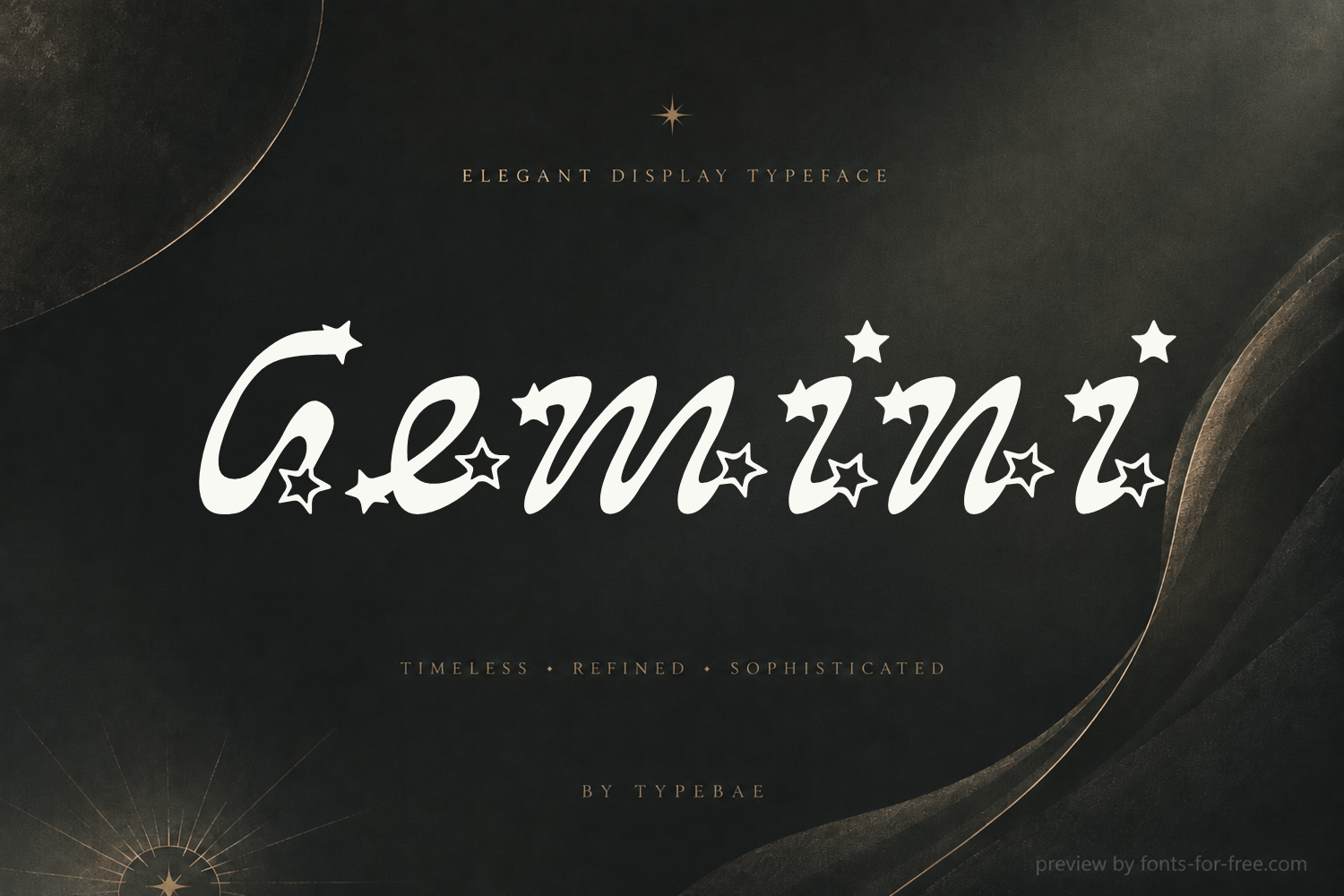
Gemini
Gemini is a decorative script display font designed by Hiya Singh and distributed under the SIL Open Font License 1.1. Its letters use a flowing, slanted cursive structure with rounded terminals, connected strokes, and a soft handwritten rhythm. Star-shaped ornaments give the typeface a celestial, ornamental character without making the main word shapes overly complex. The contrast is gentle, with broad curves and open spacing that keep short titles readable. Gemini is better suited to display settings than body text, especially for logos, invitations, greeting cards, packaging, editorial titles, boutique branding, and other designs that need a graceful decorative script.